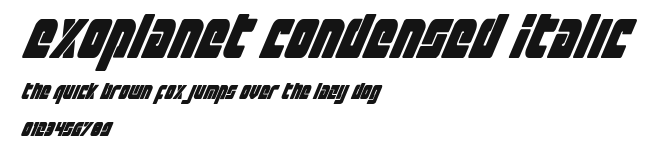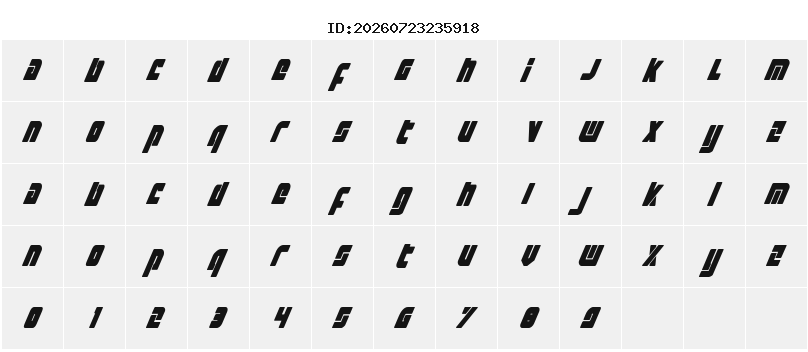
Exoplanet Condensed Italic.ttf
Exoplanet Condensed Italic Preview
• Font Name: Exoplanet Condensed Italic
• Font Style: Condensed Italic
• Font ID: Exoplanet Condensed: 2012
• Full Font Name: Exoplanet CondensedItalic
• Version: Version 1.0; 2012
• PostScript Name: ExoplanetCondensedItalic
About Exoplanet Condensed Italic.ttf
Exoplanet Condensed Italic.ttf is a modern, elegant sans-serif font designed for ultimate readability and visual harmony. Perfect for branding, headlines, web design, and print materials.